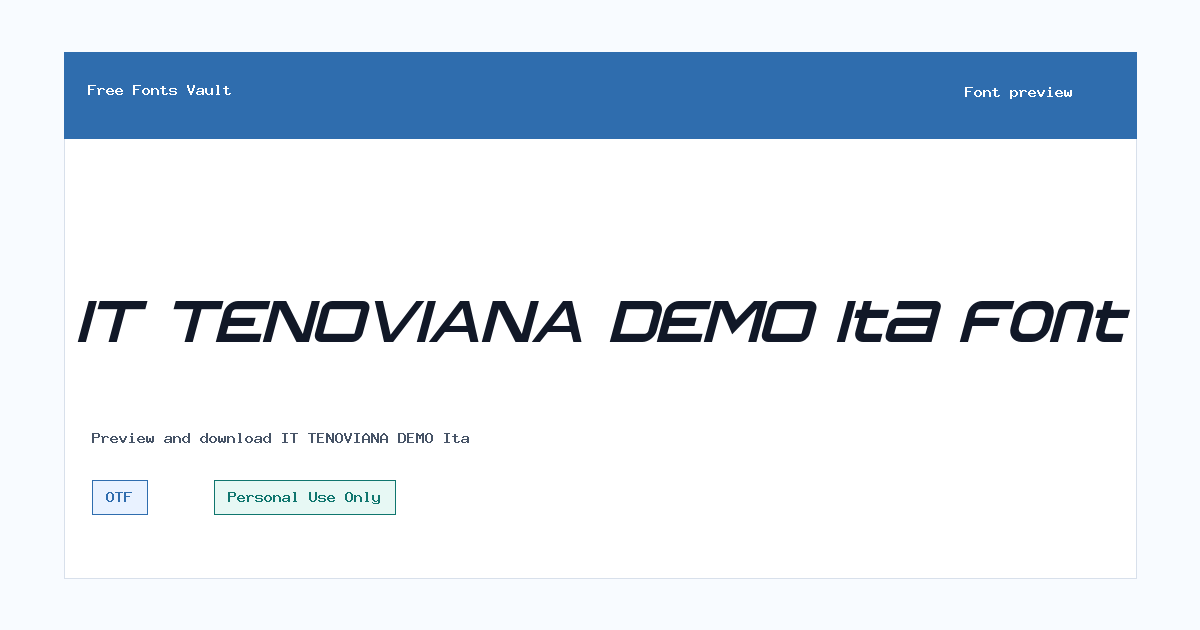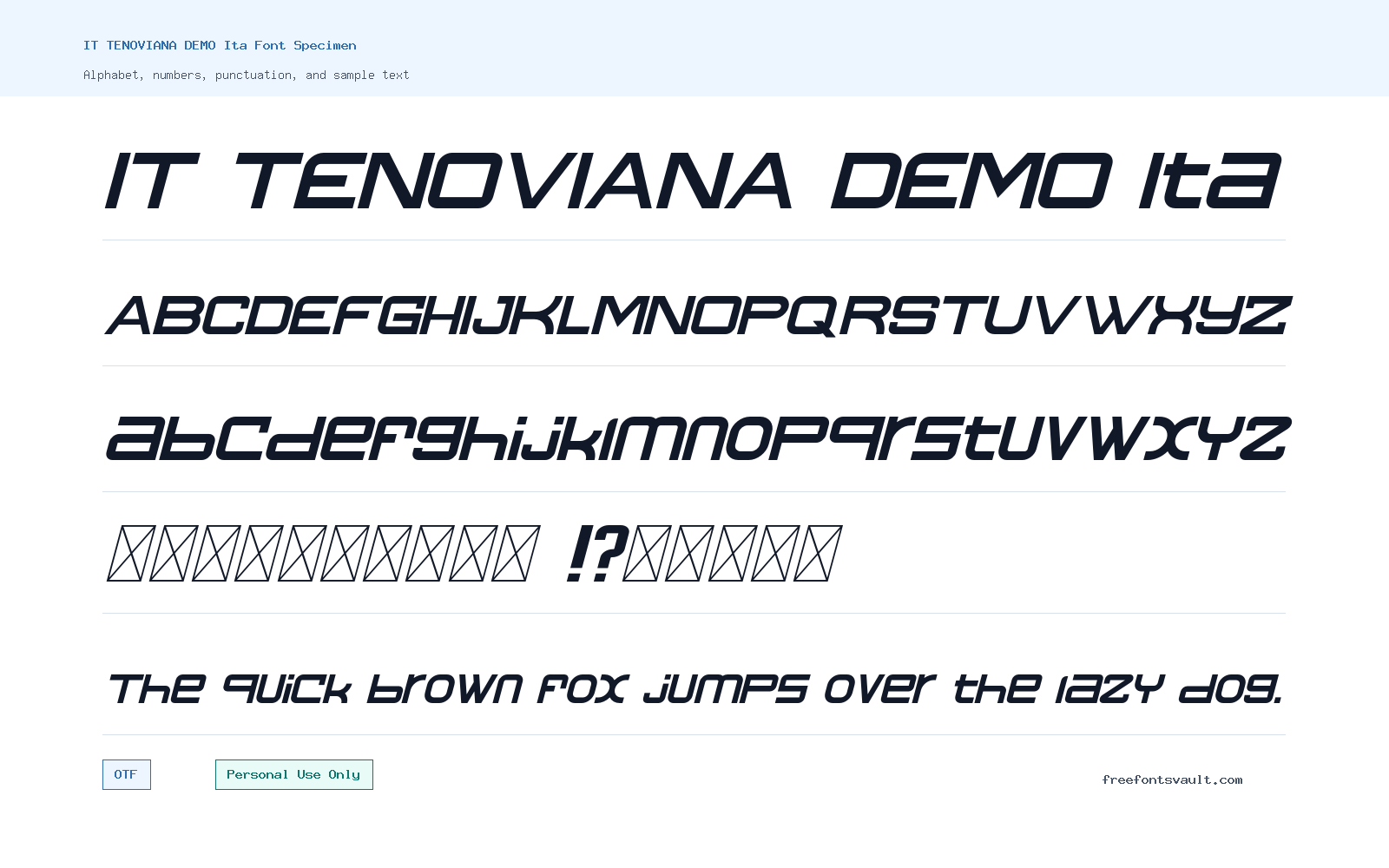
IT TENOVIANA DEMO Ita
IT TENOVIANA DEMO Ita font preview showing the family name
IT TENOVIANA DEMO Ita Font
IT TENOVIANA DEMO Ita font specimen showing alphabet, numbers, and sample text
IT TENOVIANA DEMO Ita font.
IT TENOVIANA DEMO Ita is the italic style of Tenoviana, a sharp display font with a futuristic, techno-leaning look. It is best treated as a headline and logo-style font, not a body text face, and the demo license is for personal use only.
About IT TENOVIANA DEMO Ita
IT TENOVIANA DEMO Ita has the slanted energy designers often want from sci-fi and tech display typography. The letterforms are made for impact: angular, compact, and better suited to short words than long reading. In a preview window, test it with names, titles, interface labels, poster headlines, album-style text, and gaming or cyber-themed phrases. The italic angle gives the font a forward-moving feel, which can help a wordmark or title feel more active without adding extra effects.
Because this is a display font, the best results usually come from using it at larger sizes with careful spacing. Try it for logo concepts, mockups, posters, YouTube-style thumbnail drafts, event graphics, game UI concepts, tech presentation covers, and personal branding experiments. Avoid using it for paragraphs, small captions, legal text, or dense navigation menus, because the same sharp style that makes it stand out can also reduce readability when the text gets small. If you are designing a logo or title, preview both uppercase and lowercase letters, then adjust tracking until the shapes feel balanced.
For web mockups, IT TENOVIANA DEMO Ita can work well as a hero heading or a single accent line. Pair it with a calm sans serif for the rest of the page so the display style does not fight with menus, buttons, and descriptions. A neutral geometric sans, a simple grotesque, or a clean UI font will usually be easier to read beside it. Keep the color contrast strong, especially on dark backgrounds, and test the title at mobile sizes before deciding whether it belongs in a live interface.
• Italic display style with a futuristic, sci-fi, techno feel
• Works best for short, high-impact text rather than long reading
• Useful for personal-use logo concepts, posters, game UI mockups, and tech-themed previews
• Designed by Indotype Foundry, with commercial licensing handled separately
• Personal logo concepts and wordmark experiments
• Sci-fi, cyber, gaming, and tech-themed poster titles
• Music artwork mockups, event graphics, and cover-style typography
• Hero headings in web or app interface mockups
• Short display text where a slanted high-tech style is useful
Use IT TENOVIANA DEMO Ita as a controlled accent. Start with one strong headline, keep supporting text in a simpler font, and avoid overusing effects such as glow, outline, bevel, or heavy shadows until the raw letter spacing works. For logo work, test the exact brand name in uppercase, lowercase, and mixed case, because display fonts can change character dramatically depending on the word. For posters and thumbnails, check the design at a small size to make sure the key word is still readable.
What kind of font is IT TENOVIANA DEMO Ita?
It is an italic display font with a futuristic, sci-fi, and techno look. It is best for short titles, logos, posters, and mockups rather than paragraphs.
What should I pair with IT TENOVIANA DEMO Ita?
Pair it with a clean sans serif for body text, buttons, and captions. Let Tenoviana handle the headline while the simpler font keeps the design readable.
Is it good for website body text?
No. It is better for large display text. For paragraphs or interface copy, choose a more neutral and readable sans serif.